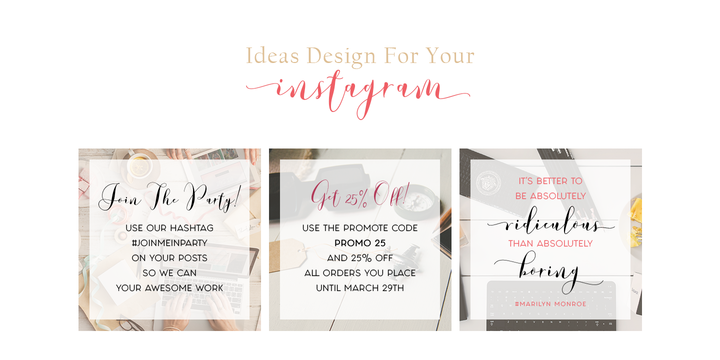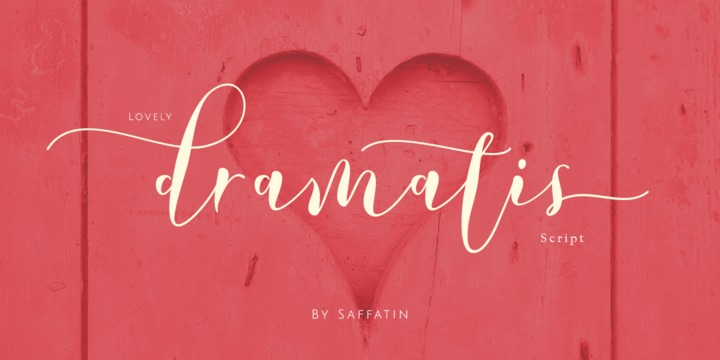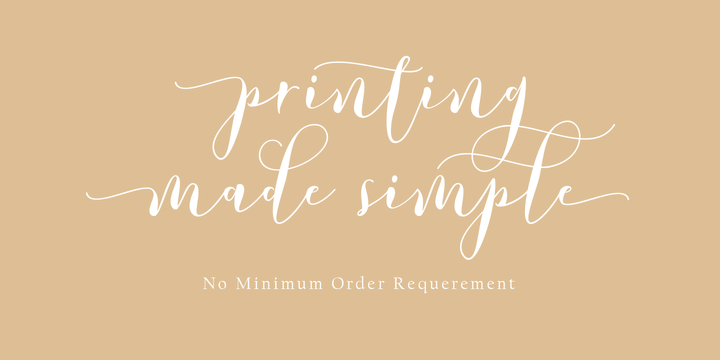
Lovely Dramatis
Lovely Dramatis Handwriting Font
LOVELY DRAMATIS is a modern script typeface. This font very easy to use and really playful. You can explore to create a combination that would be nice.
Comes with modern style, is handmade and clean. LOVELY DRAMATIS, includes swashes, ligatures, Alternate and International support for most Western Languages. LOVELY DRAMATIS come with 484 glyphs.